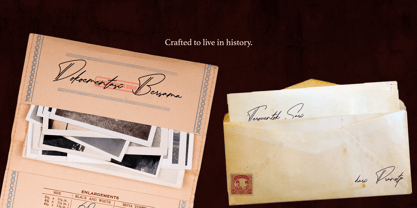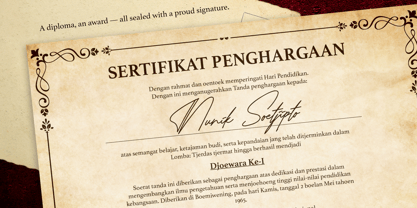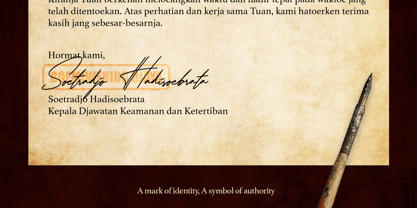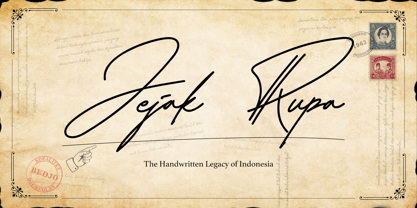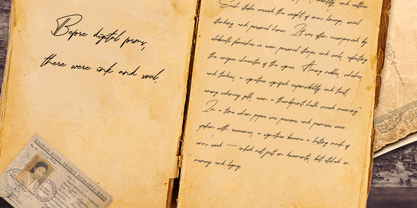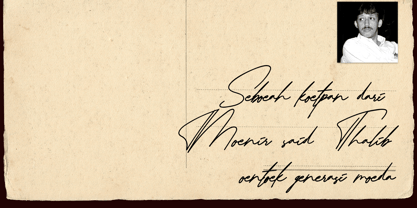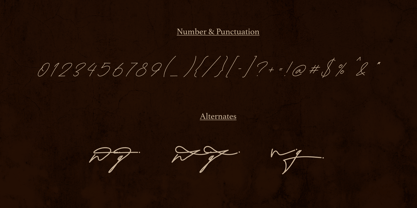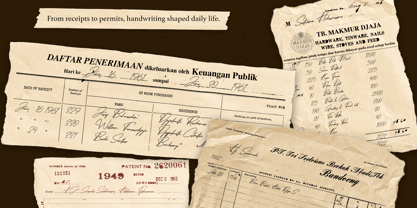
Jejak Rupa
by Inviline
The Jejak Rupa Font Family was designed by Virgiawan Listanto and published by Inviline. Jejak Rupa contains 1 styles. More about this family
JEJAK RUPA is a nostalgic script font inspired by handwritten letters, notes, and signatures from Indonesia’s past. It captures the warmth of old paper, the elegance of cursive ink, and the deep emotional heritage of handwritten stories. Crafted with a vintage soul and local flavor, Jejak Rupa brings timeless character to every design it touches.
• Uppercase & Lowercase Characters: Fully designed for a complete typographic experience
• Numerals & Punctuation: All the numbers and punctuation marks you need for any design task